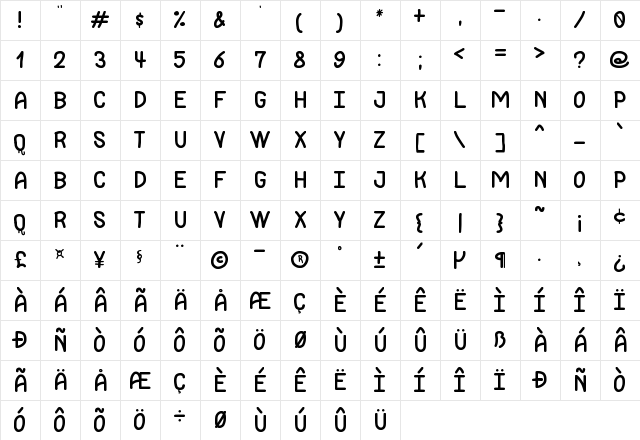
Jackdaws Love St Regular
Design Context for Jackdaws Love St Typeface
Jackdaws Love St takes a measured approach to typography — its balanced proportions and neutral character make it a reliable workhorse for both digital and print work.
Pro Tip: Pair Jackdaws Love St with a font of contrasting weight or personality to build a more expressive typographic hierarchy.